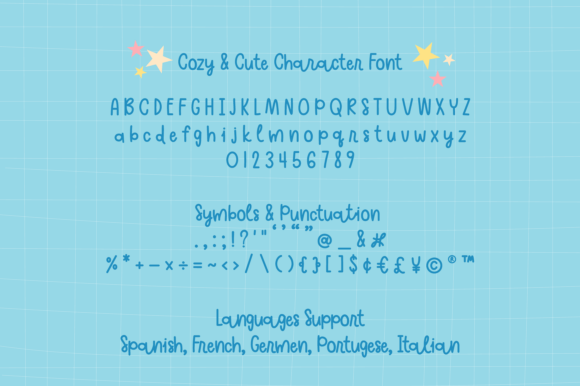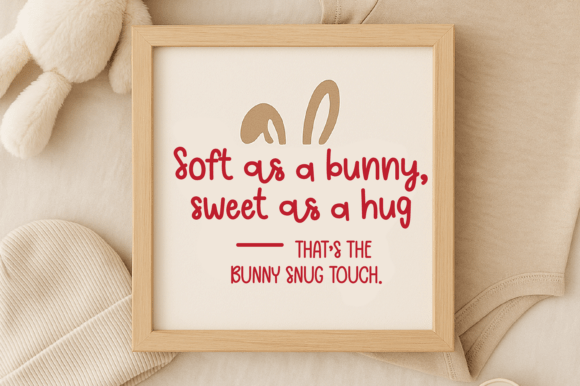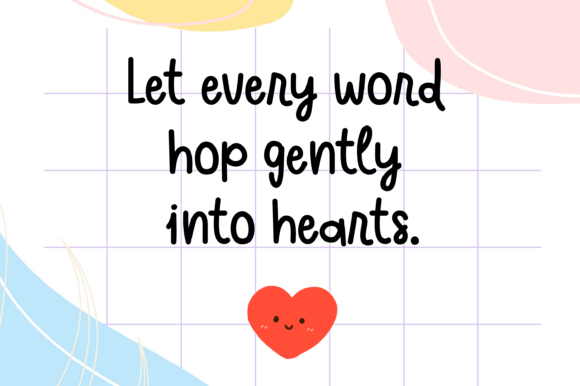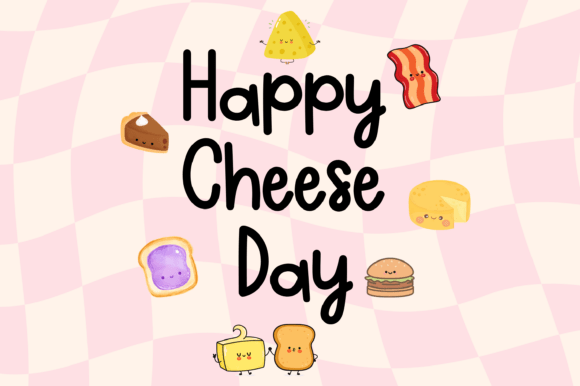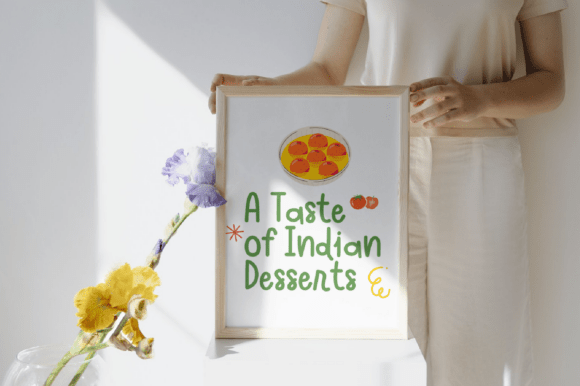
Snuggle Up with Creativity
Do you remember the joy of crafting a handmade card for a loved one, or the excitement of creating a special project with your little ones? Those moments of creativity are some of the most precious, and they’re often made even sweeter with the right font. Introducing the Bunnysnug Font, a charming handwritten font that’s sure to bring a smile to your face.
This adorable font is perfect for designers who want to add a touch of warmth and whimsy to their projects. With its friendly curves and playful bounce, the Bunnysnug Font is ideal for children’s projects, Easter designs, and nursery art. Whether you’re creating for a little one’s world or crafting a brand that wants to feel approachable and kind, this font will wrap your words in warmth and personality.
Bunnysnug Font Key Features
- Font Family: Bunnysnug Font offers a unique, whimsical font style with multiple weights and styles.
- Unique Characteristics: Features hand-drawn, playful elements and subtle texture, adding a touch of personality to designs.
- Font Weights: Includes light, regular, medium, bold, and black weights, allowing for flexibility in design applications.
Bunnysnug Font Review
As a designer, I was excited to try out the Bunnysnug Font. At first glance, I was impressed by its whimsical and playful vibe. Here are some things that really stand out:
- ✨ Unique character set: The font features a wide range of characters, including cute symbols and special characters that add to its charm.
- ✨ Customization options: Bunnysnug Font offers a variety of font styles and sizes, making it easy to customize to suit your needs.
- ✨ Versatile: This font can be used for a variety of projects, from children’s books to social media graphics.
However, I did encounter some limitations that might affect its usability:
- ⚠️ Limited legibility at small sizes: While the font looks great at larger sizes, it can become difficult to read at smaller sizes.
- ⚠️ Not ideal for formal or professional projects: The font’s playful nature might not be suitable for more formal or professional projects.
Overall, I think the Bunnysnug Font is a great choice for designers looking for a fun and whimsical font. However, it’s essential to consider the project’s requirements and audience before using it. With a little creativity and customization, this font can be a great addition to your design toolkit.
Tips for Getting the Most Out of Bunnysnug Font
For the best results, use the Bunnysnug Font in combination with playful and whimsical graphics. This font is perfect for children’s book illustrations, nursery decor, and other projects that require a cute and endearing tone. Experiment with different font sizes and colors to create a visually appealing design.
Bunnysnug Font is commonly used in children’s book illustrations, nursery decor, party invitations, and other projects that require a cute and endearing tone. It’s also great for creating a playful and whimsical brand identity for businesses that cater to families and children.